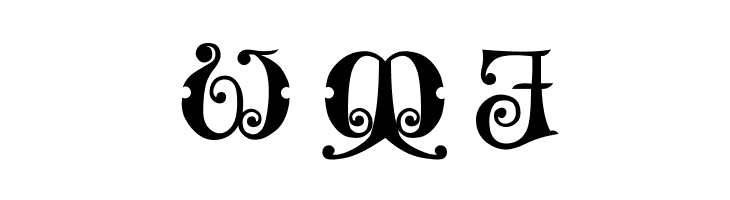
Sardonic-owl Font
A decorative font with owl motifs integrated into each character, offering a whimsical and unique style.
Eeewwww Messy Boy Font
Font by www.foamtrain.com
A distressed, chaotic font with jagged edges and a grunge aesthetic.
Samaritan Script 300 B.C. Font
Font by www.foamtrain.com
Handwritten, ancient script with organic, flowing forms.
Unserif Font